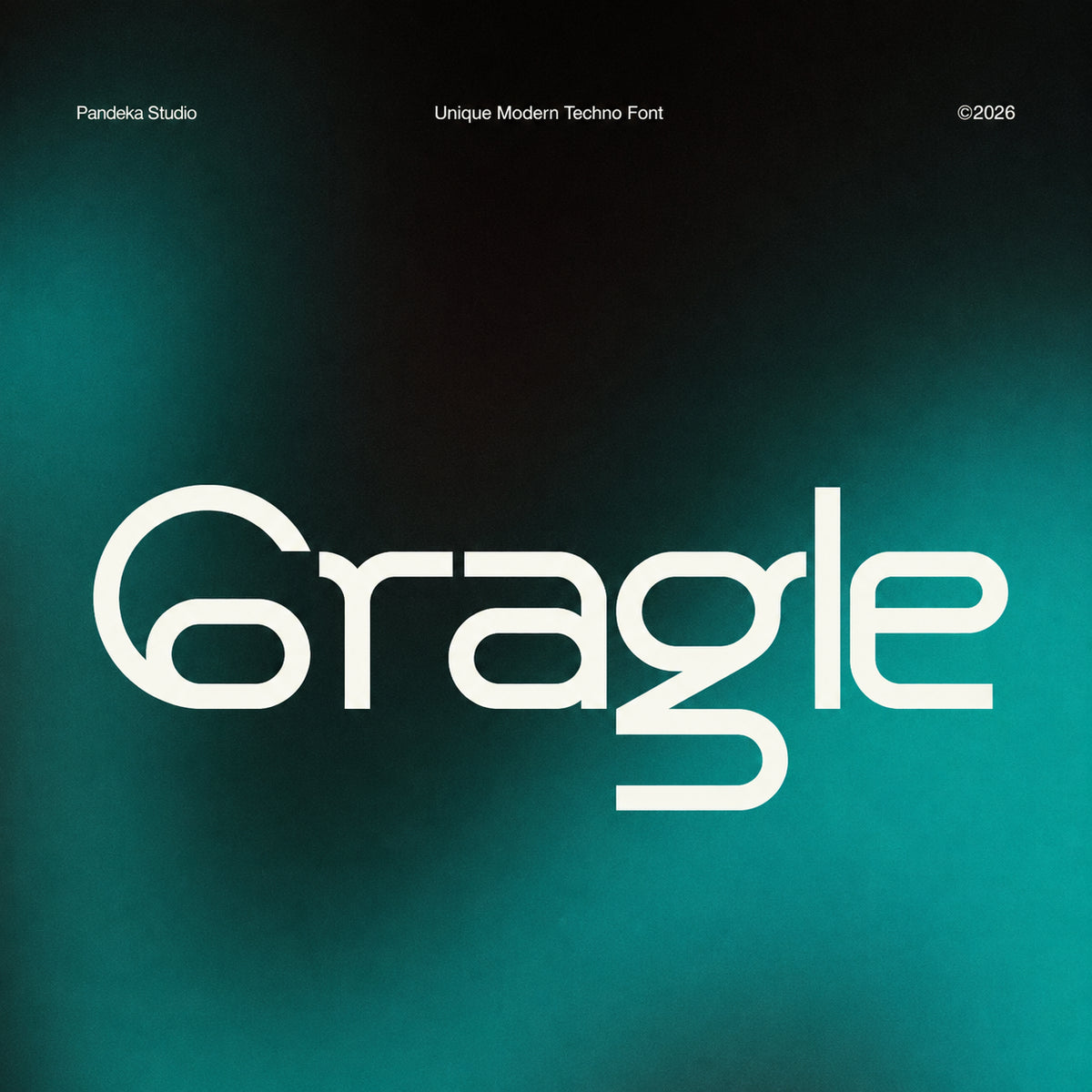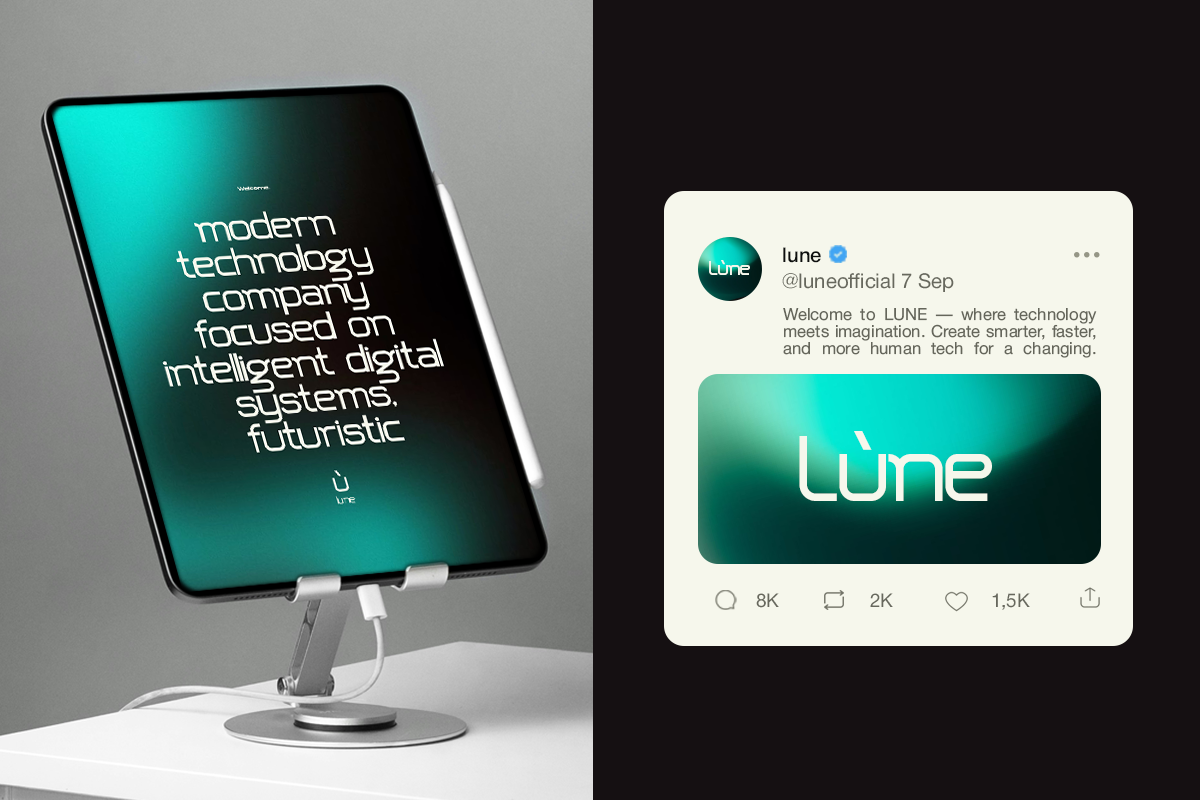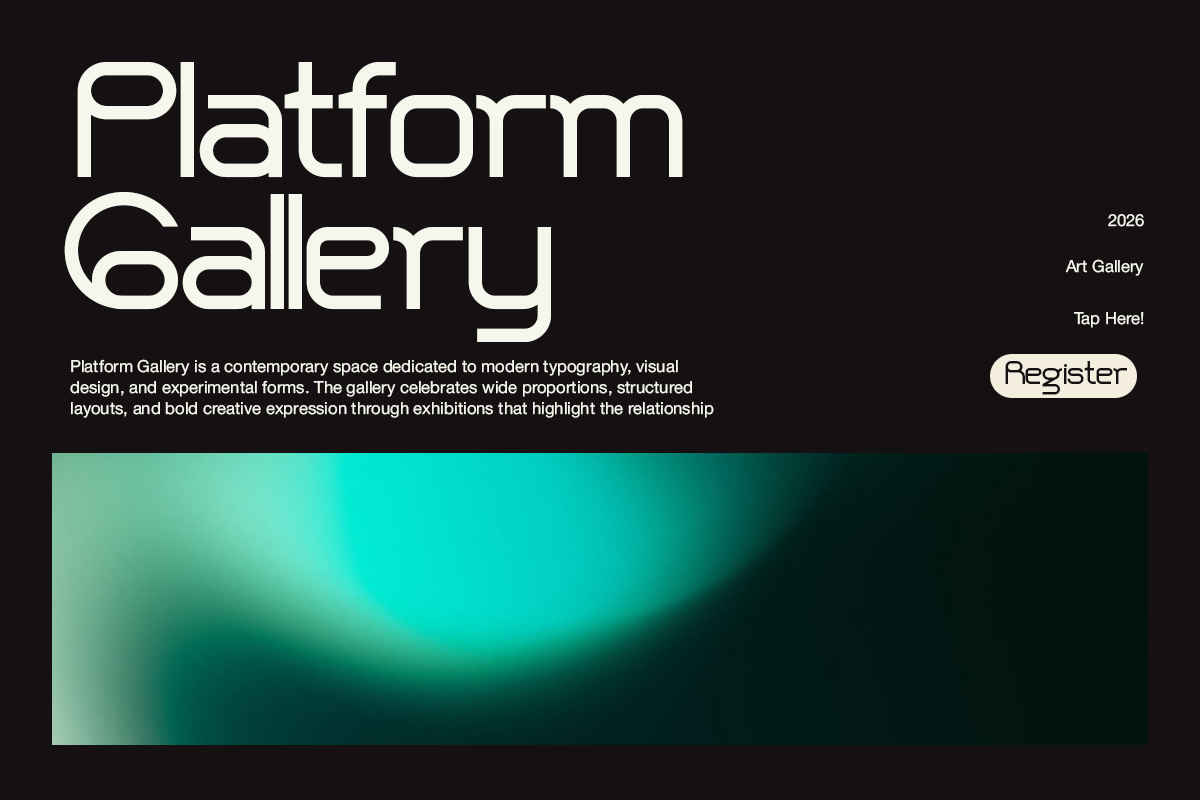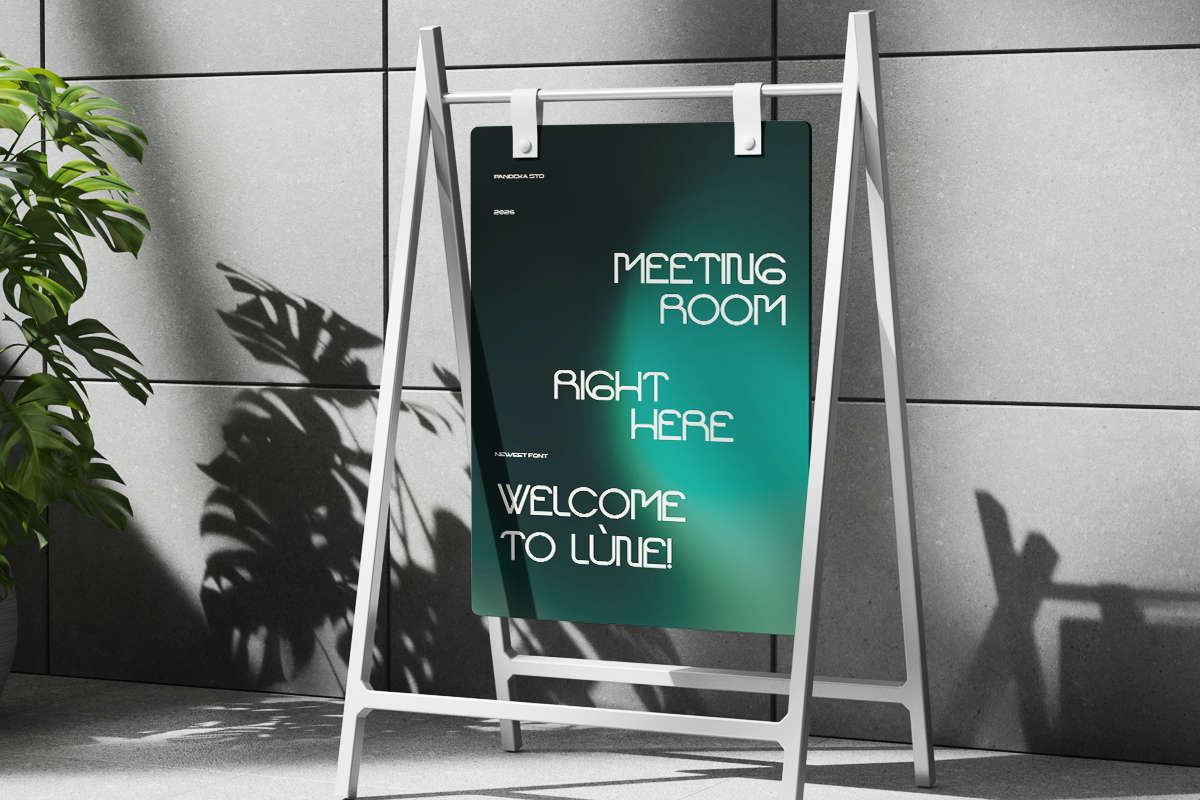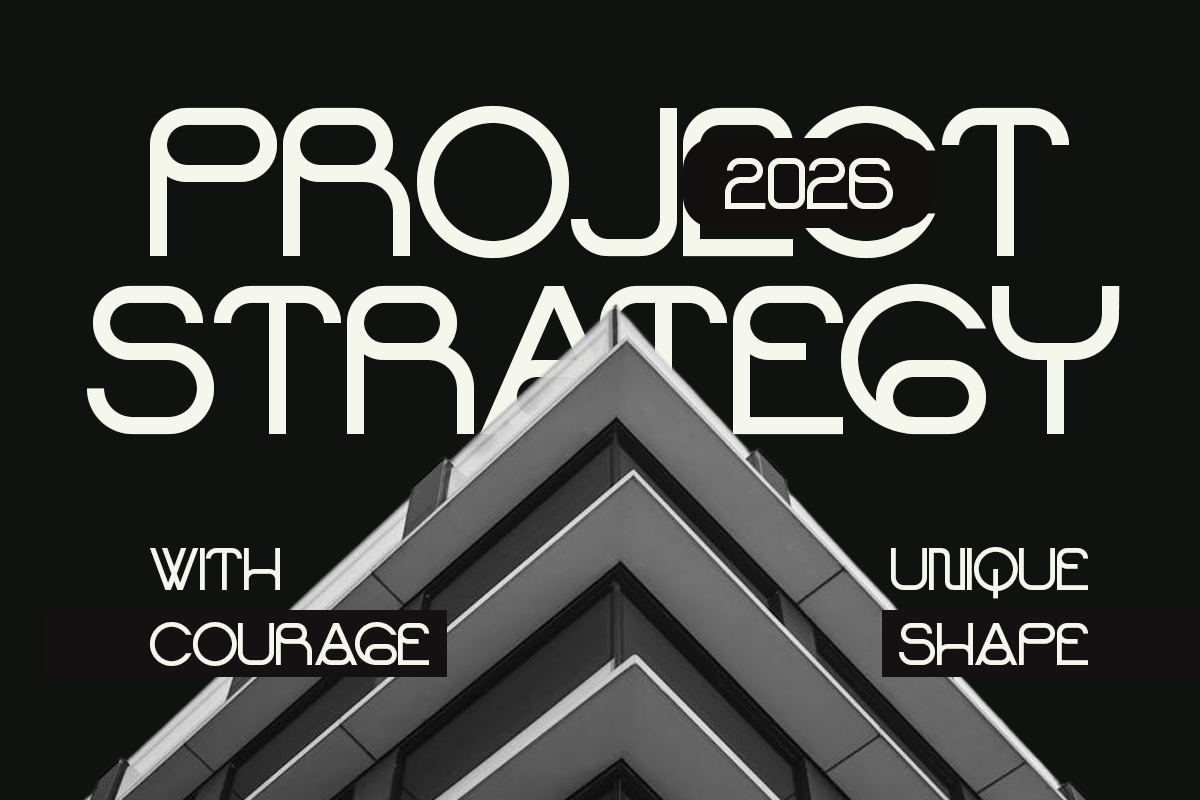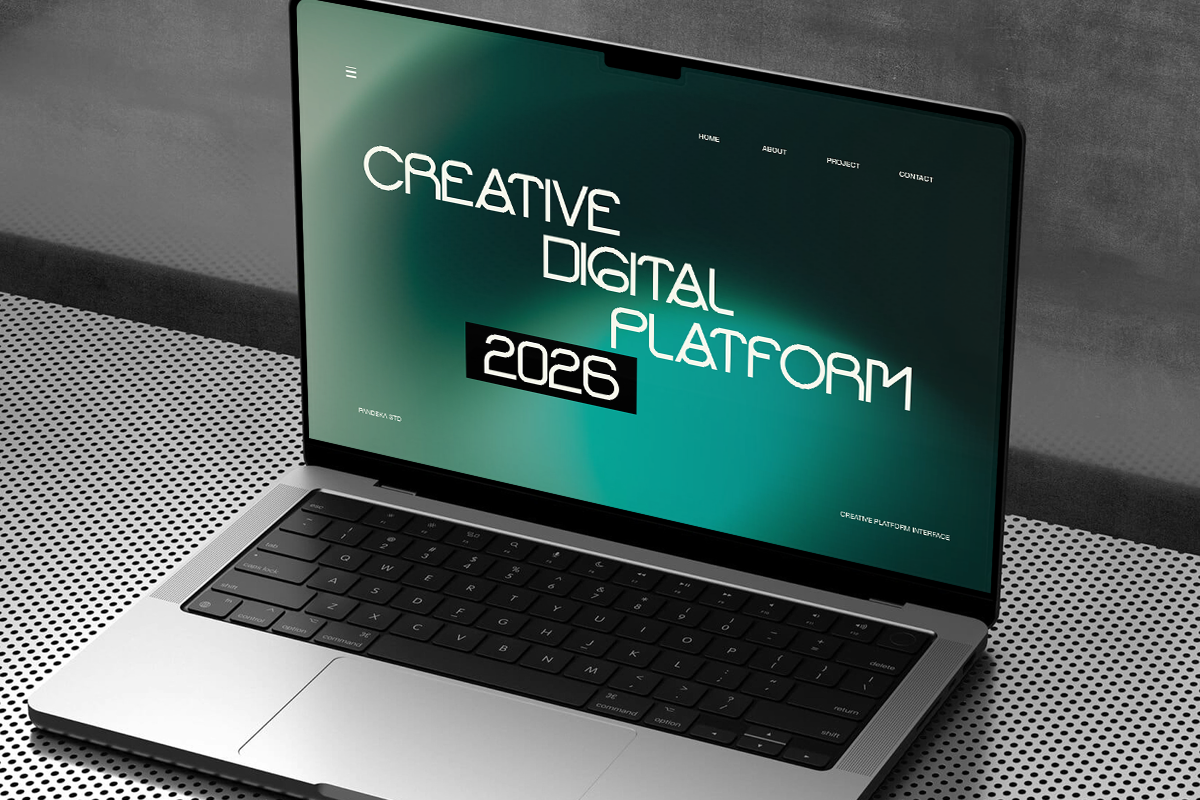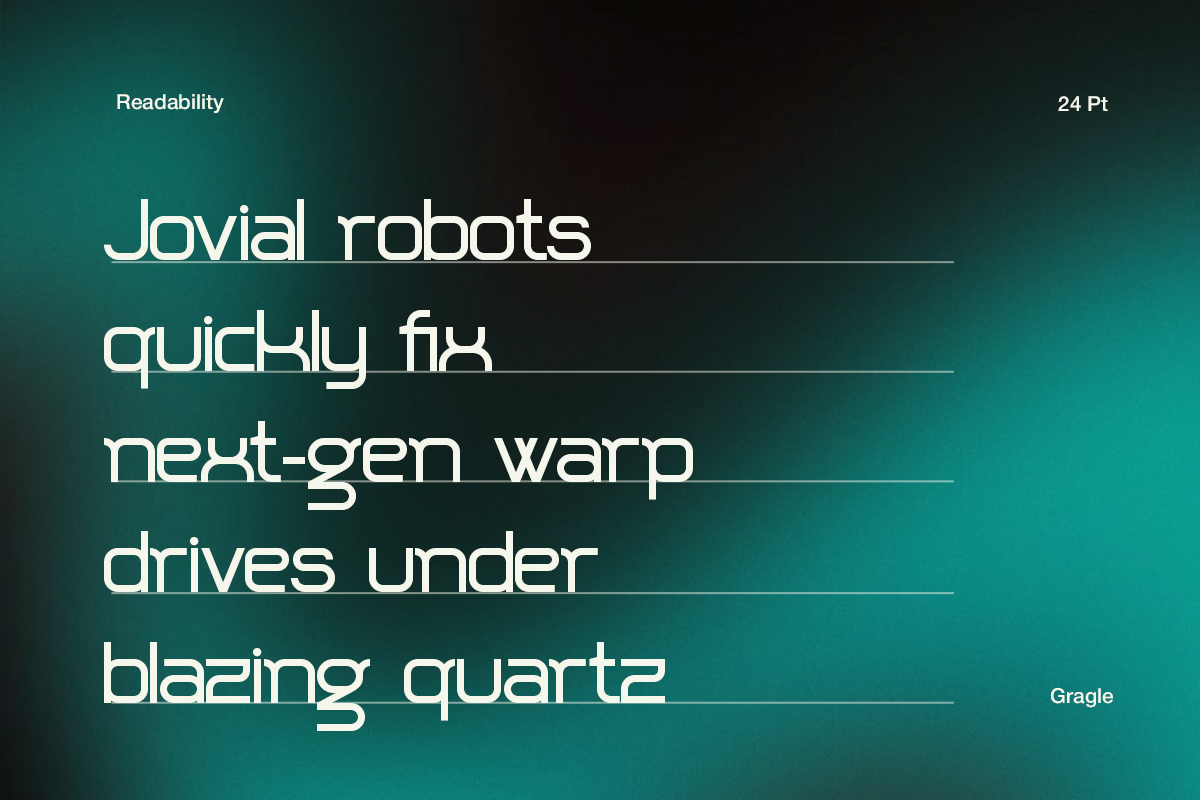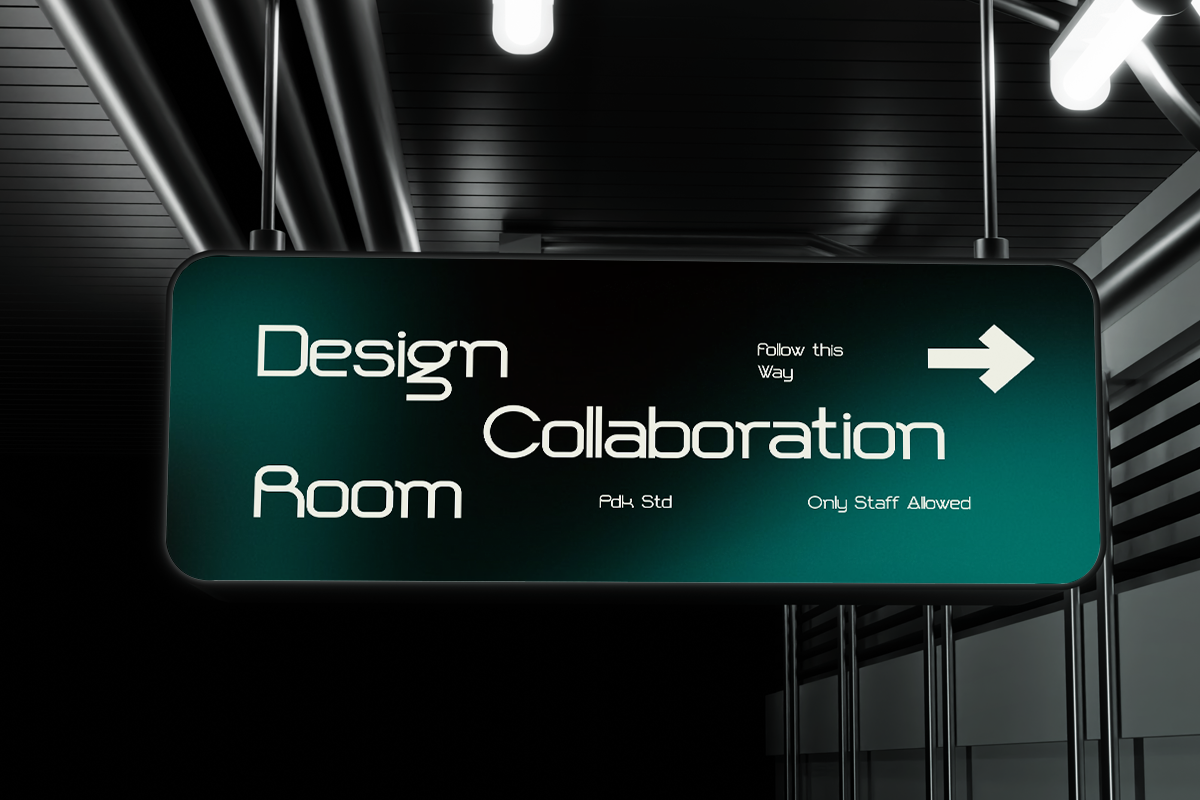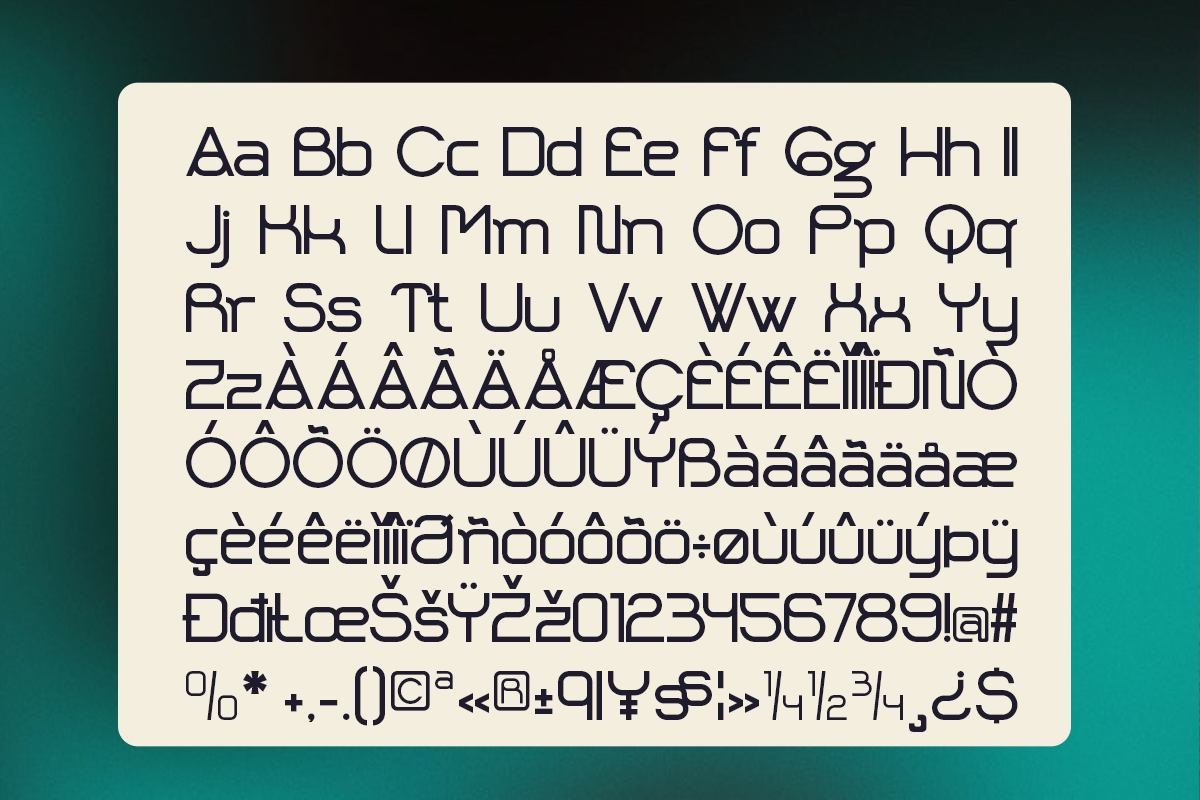
Gragle - Modern Techno Font
Gragle is a modern techno display font crafted with sleek geometric construction, futuristic curves, and clean digital aesthetics. Its unique letterforms create a strong high-tech atmosphere, making it perfect for technology branding, gaming visuals, digital interfaces, futuristic posters, and modern creative projects.
Designed in 1 versatile Regular style, Gragle delivers a bold and contemporary presence while maintaining excellent readability. Whether you’re building a tech startup identity, UI design, esports branding, social media graphics, or futuristic editorial layouts, Gragle adds a sharp, innovative, and cutting-edge visual character to your work.
1 Style: Regular
Full Character Set: Uppercase, lowercase, numbers, symbols, and punctuation
Language Support: Danish, English, Estonian, Filipino, Finnish, French, Friulian, Galician, German, Gusii, Indonesian, Irish, Italian, Luxembourgish, Norwegian Bokmål, Norwegian Nynorsk, Nyankole, Oromo, Portuguese, Romansh, Rombo, Spanish, Swedish, Swiss-German, Uzbek (Latin)